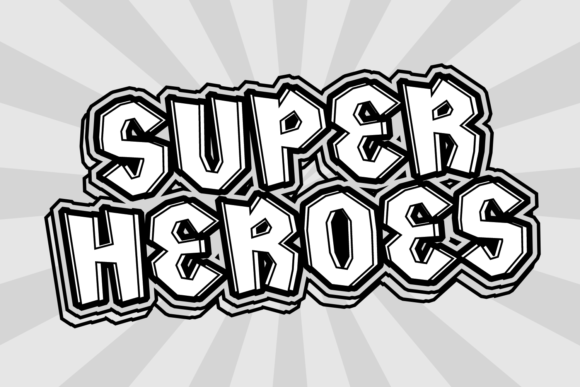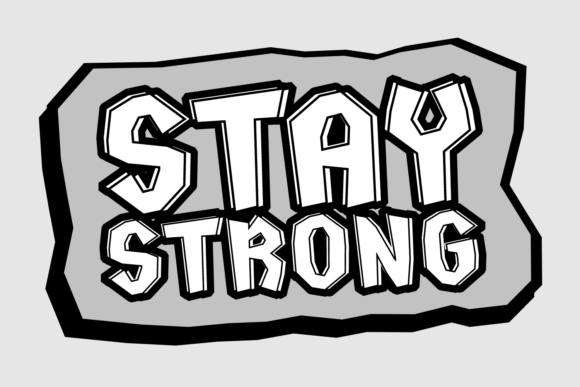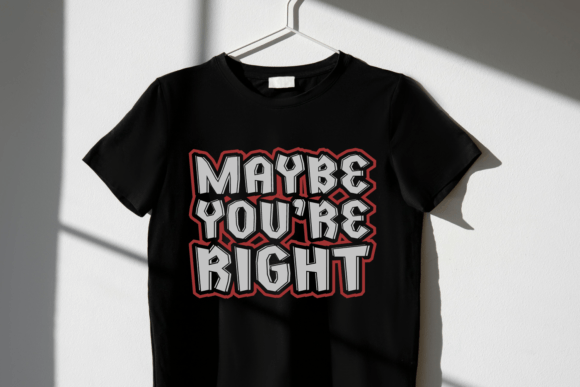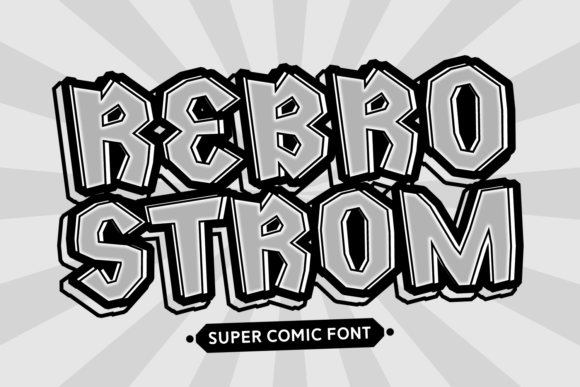
Introduction to Rebro Strom Font
Rebro Strom is a bold and dynamic comic font with a distinctive graffiti-inspired feel.
It combines the energy and playfulness of comic book lettering with the edgy, street-style aesthetics of graffiti The bold, expressive letterforms create a strong visual impact, making it perfect for designs that need to convey action, movement, and urban flair.